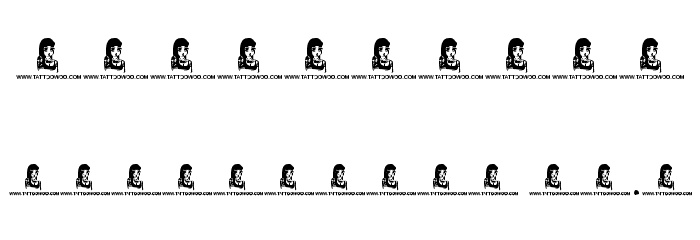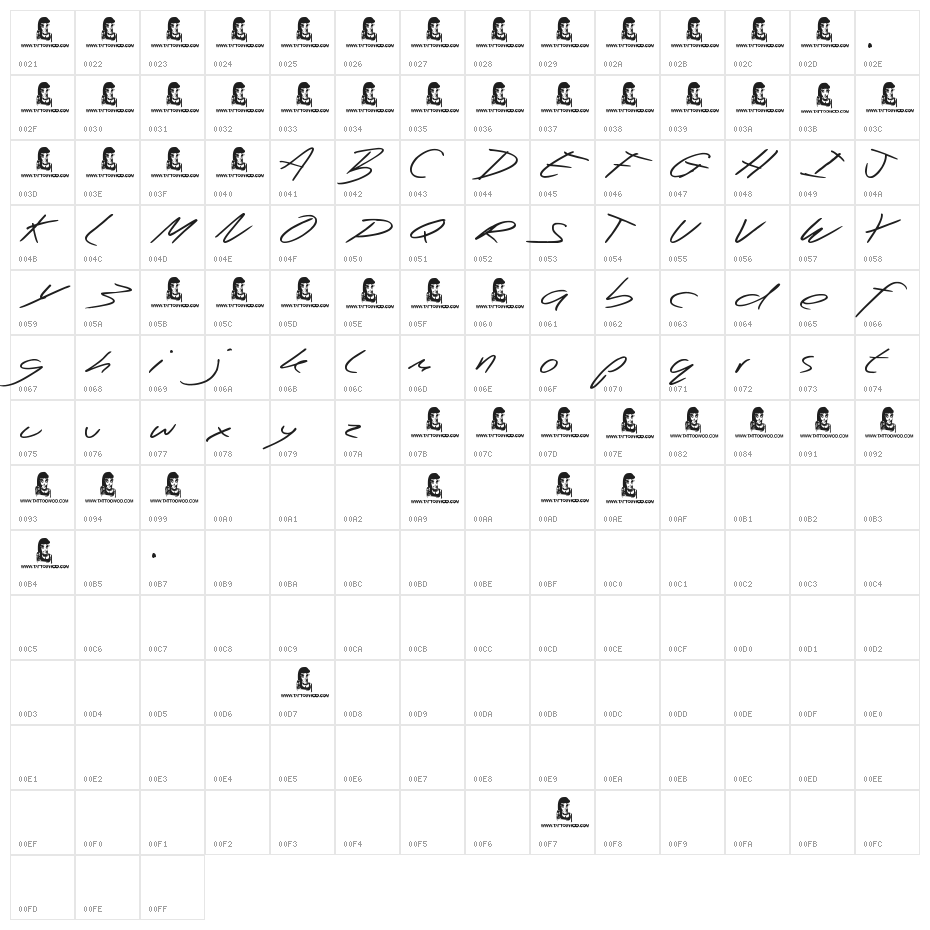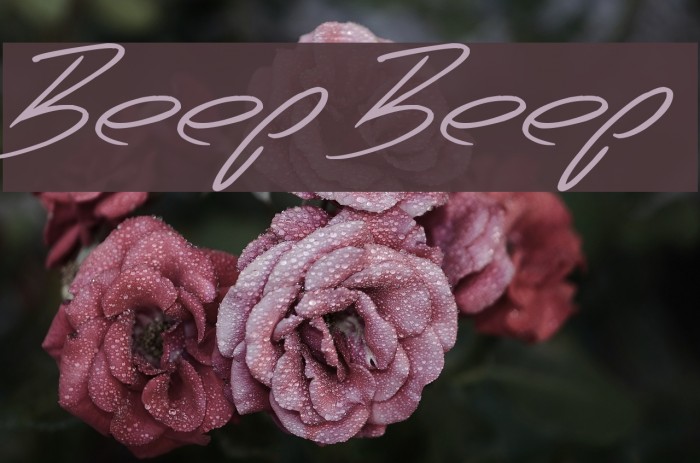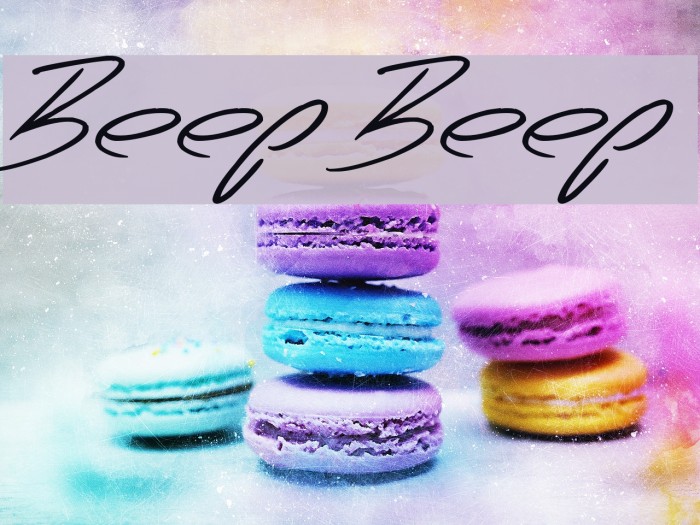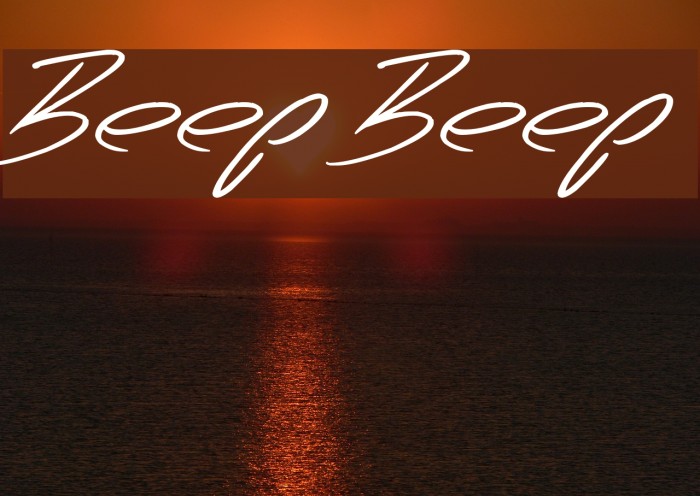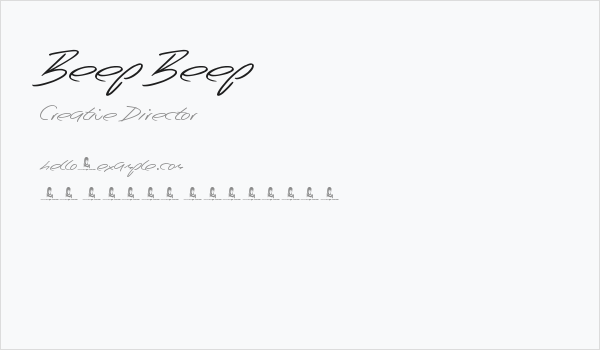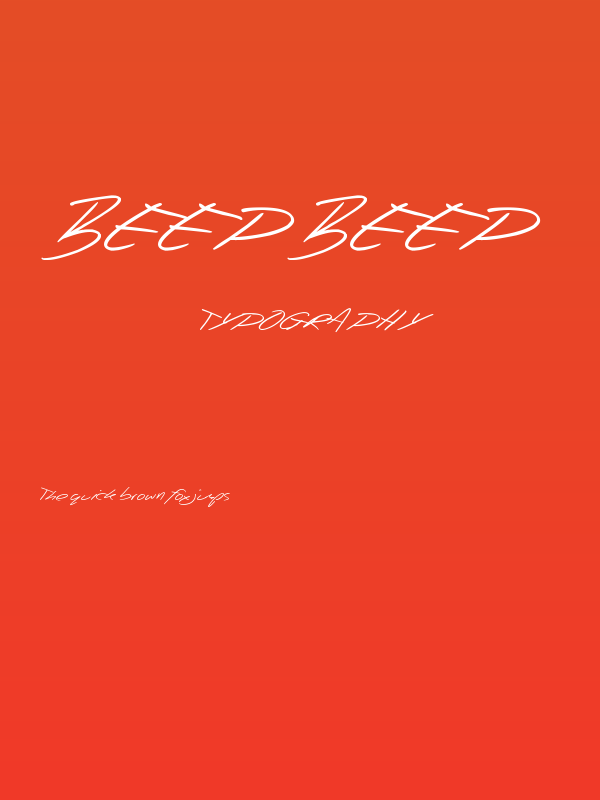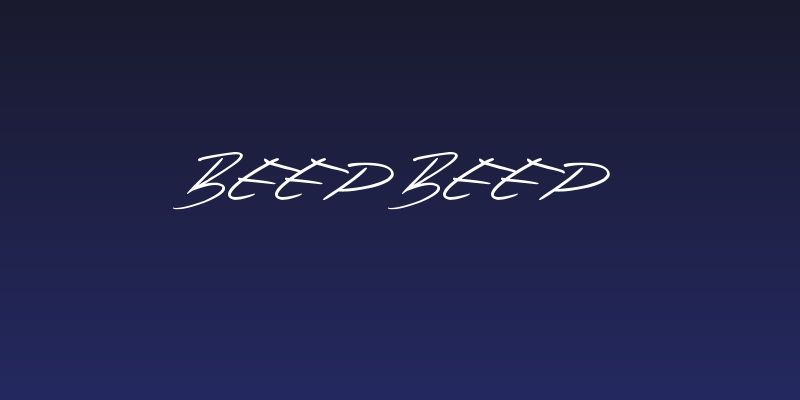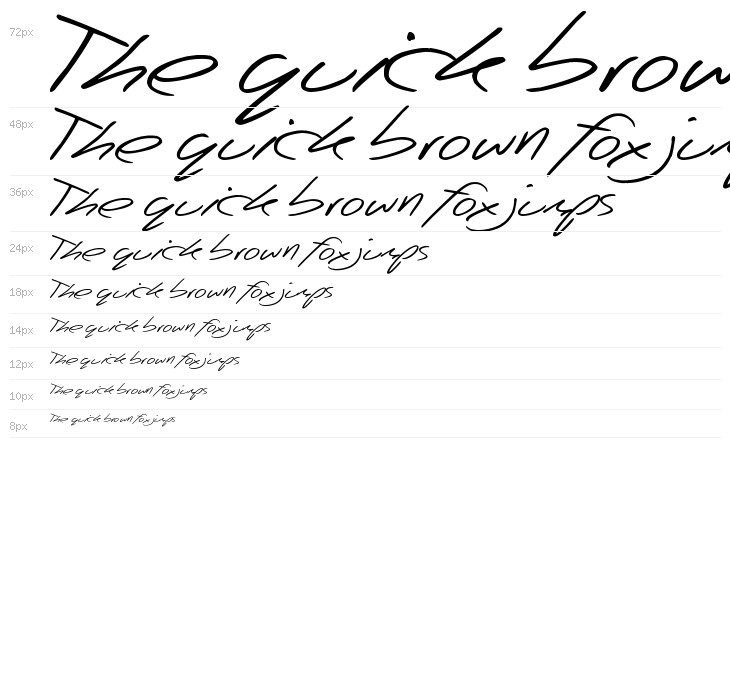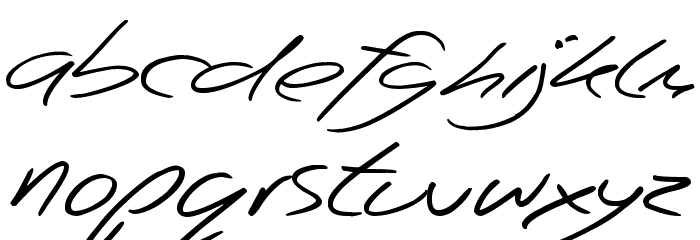
Beep Beep Font
Beep Beep Description
This font features a dynamic and fluid script style, characterized by its elegant, flowing lines and cursive letterforms. The uppercase letters are slightly more angular, adding a touch of modernity, while the lowercase letters maintain a smooth, handwritten appearance. The overall look is both sophisticated and approachable, making it suitable for a variety of creative applications. The characters are well-spaced, ensuring readability while maintaining the artistic flair of the script. This font is ideal for projects that require a personal touch, such as invitations, greeting cards, or branding materials.
| Proposed Projects | Ideal for invitations, greeting cards, branding, and creative projects requiring a personal touch. |